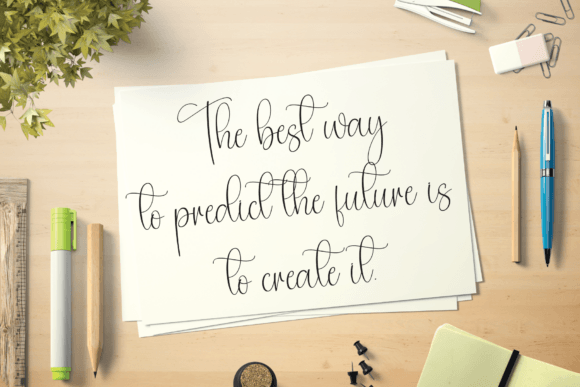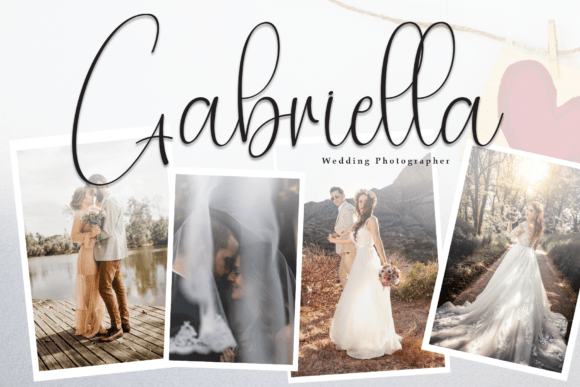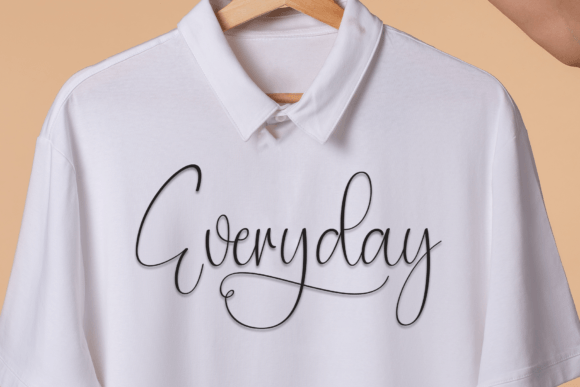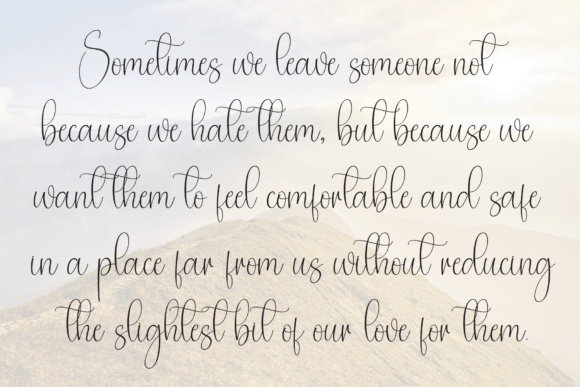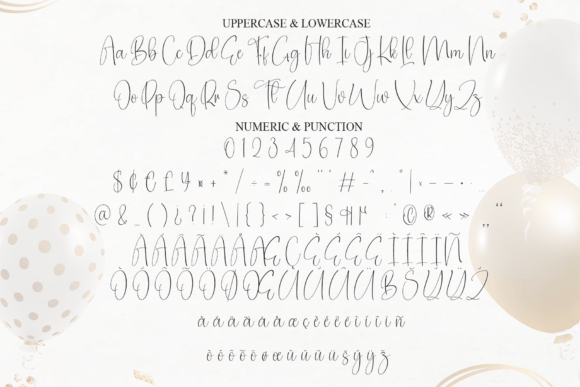
Congrats Font: Elevate Your Designs with Elegance and Sophistication
In the world of typography, few fonts capture the essence of classic calligraphy as beautifully as Congrats Font. This stunning script font is designed to bring a touch of elegance and sophistication to your creative projects. With its smooth, flowing curves and timeless charm, Congrats Font is the perfect choice for designers and crafters looking to add a level of refinement to their work.
A Closer Look at Congrats Font
Congrats Font boasts a beautiful script style that is reminiscent of traditional calligraphy. Its graceful letterforms are carefully crafted to exude a sense of luxury and refinement, making it an ideal choice for a variety of design applications. Whether you’re creating cards, gift tags, invitations, or seasonal decorations, Congrats Font is sure to bring a touch of warmth and joy to your projects.
Perfect for Winter-Themed Designs
One of the standout features of Congrats Font is its ability to pair perfectly with winter-themed elements. The font’s classic calligraphy style and smooth curves evoke a sense of warmth and coziness, making it an excellent choice for designers and crafters working on winter-inspired projects. From snowflakes and pinecones to holly and mistletoe, Congrats Font is the perfect complement to your winter wonderland designs.
Congrats Font is incredibly versatile, making it suitable for a wide range of design applications. Here are just a few ideas to get you started:
- Cards and Invitations: Add a touch of elegance to your greeting cards and invitations with Congrats Font. Perfect for special occasions like weddings, birthdays, and holidays.
- Gift Tags: Create beautiful gift tags with Congrats Font that are sure to impress. Add a personal touch to your gifts with this stunning script font.
- Seasonal Decorations: Bring warmth and joy to your seasonal decorations with Congrats Font. Perfect for winter-themed projects, such as Christmas cards, snowflake decorations, and New Year’s Eve invitations.
- Stationery and Journaling: Add a touch of sophistication to your stationery and journaling projects with Congrats Font. Create beautiful headers, titles, and quotes that are sure to inspire.
Why Choose Congrats Font?
With so many fonts available, why choose Congrats Font? Here are just a few reasons why designers and crafters love this beautiful script font:
- Unique and Elegant: Congrats Font is a unique and elegant script font that is sure to stand out in any design.
- Highly Versatile: Perfect for a wide range of design applications, from cards and invitations to seasonal decorations and stationery.
- Easy to Read: Despite its elegant style, Congrats Font is highly legible, making it perfect for both digital and print designs.
- Timeless Charm: Congrats Font has a timeless charm that will never go out of style. Use it again and again in your designs without worrying about it becoming outdated.
Get Creative with Congrats Font
Ready to elevate your designs with Congrats Font? Here are a few tips to get you started:
- Experiment with Colors: Try pairing Congrats Font with a range of colors to create stunning contrast and visual interest.
- Mix and Match: Combine Congrats Font with other fonts and design elements to create unique and eye-catching designs.
- Play with Size: Experiment with different font sizes to create visual hierarchy and emphasis in your designs.
With Congrats Font, the possibilities are endless. Whether you’re a designer, crafter, or DIY enthusiast, this beautiful script font is sure to bring a touch of elegance and sophistication to your creative projects. So why wait? Download Congrats Font today and start creating stunning designs that are sure to impress!